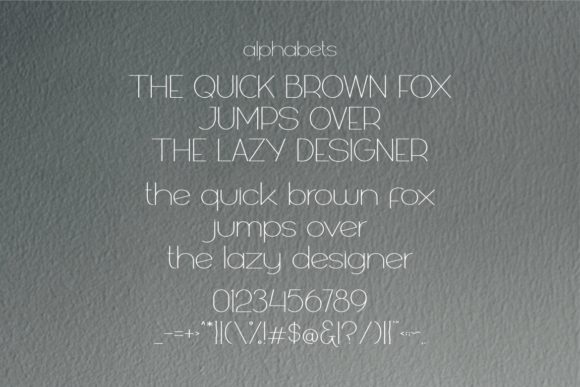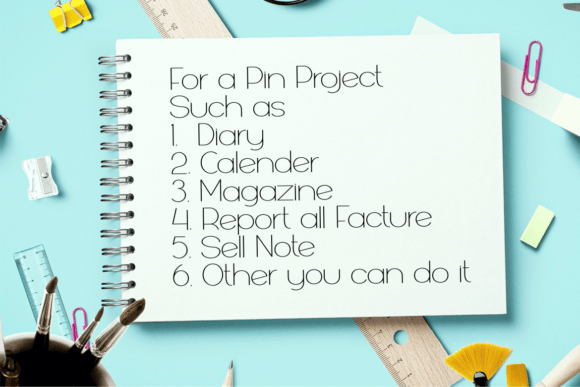
Introduction to Regho Font
Have you ever found yourself stuck in front of a blank page, trying to decide on the perfect font for your latest creative project? You’ve browsed through countless design resources, but nothing seems quite right. Then, like a breath of fresh air, you stumble upon the Regho Font. This elegant sans serif typeface is designed to make your writing shine, with its gracefully thin curves and soft, familiar look.
As a designer, you know how valuable it is to have access to high-quality fonts that can elevate your work. The Regho Font is perfect for large writing needs, from daily activity notes to magazine and newspaper layouts. And the best part? It’s available for free download, making it a fantastic addition to your design library.
With its transparent background and versatile design, the Regho Font is a must-have for any creative project. Whether you’re working on a product composition or a blog post, this font is sure to make your writing stand out.
Key Features of Regho Font
- High-quality design resource ideal for creative projects, including logos, graphics, and digital art.
- Regho Font features a transparent background, allowing for seamless integration into different design elements and backgrounds.
- Designed to be highly legible and versatile, making it suitable for a wide range of applications, from print to digital media.
- Available in multiple font sizes and resolutions, ensuring optimal readability and display quality across various devices.
- Unique characteristics include a modern and sleek aesthetic, making it an excellent choice for contemporary design projects.
- Perfect for designers, artists, and creatives looking for a high-quality, free font to enhance their work and elevate their design projects.
Honest Review: Regho Font
As a designer, I’m always on the lookout for high-quality design resources to elevate my creative projects. Recently, I stumbled upon the Regho Font, which has become a go-to font for me. In this review, I’ll share my honest thoughts on what makes it a valuable addition to my design arsenal.
- ✨ High-quality design: The Regho Font boasts a clean and modern design that’s perfect for a wide range of creative projects.
- ✨ Transparent background: The font’s transparent background allows for seamless integration with other design elements, giving me more creative freedom.
- ⚠️ Limited font weights: While the font has a decent number of font weights, I wish there were more options to choose from.
- ⚠️ Not suitable for very large or small text sizes: I’ve noticed that the font can become blurry when used at extremely large or small text sizes.
Overall, I’m thoroughly impressed with the Regho Font. Its high-quality design, free download, and transparent background make it an excellent addition to my design resource library. While it may have a few limitations, I believe the benefits far outweigh the drawbacks.
Getting the Most Out of Regho Font
To get the most out of the Regho Font, use it in combination with a transparent background to create visually appealing designs. Experiment with different font sizes, colors, and arrangements to find the perfect balance for your creative project.
The Regho Font is ideal for various design projects, including:
Can I customize the Regho Font to fit my design needs?
Yes, the Regho Font is a highly customizable design resource. You can adjust font sizes, colors, and styles to suit your creative project. Additionally, you can also use font editors or manipulation tools to modify the font’s characteristics, such as adding a transparent background or customizing the font’s spacing.